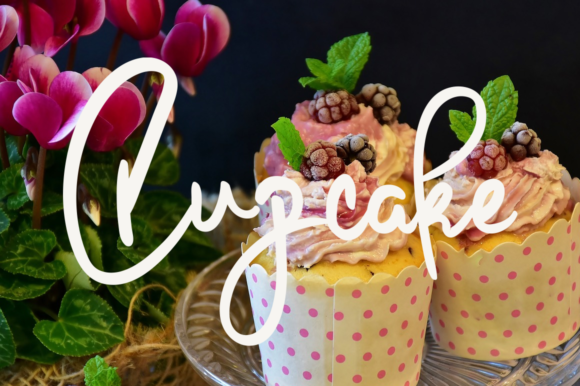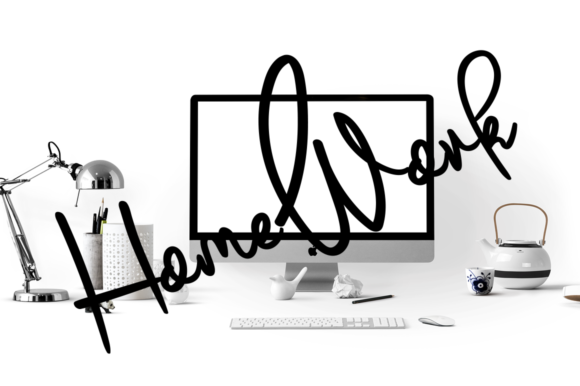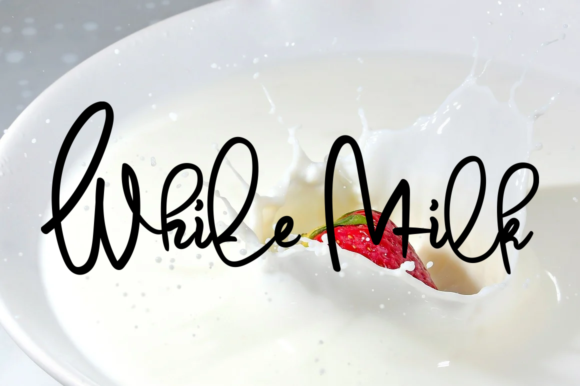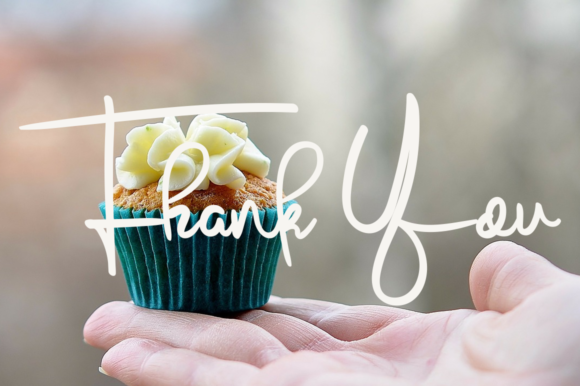
Have you ever stumbled upon a font that instantly makes you want to create something beautiful? For me, it was when I discovered the Butter Sauce Font. As I began to play with its delicate strokes and cursive flourishes, I knew I had to share it with fellow designers. This charming font is the perfect accompaniment to any design project that needs a dash of elegance and romance.
Butter Sauce Font is a dainty, thin, and cursive handwritten font that adds a touch of whimsy to your designs. Its gentle curves and playful feel make it perfect for a variety of design ideas, from wedding invitations to children’s book illustrations. As a designer, you know how valuable it is to have a versatile font that can elevate your work and leave a lasting impression on your audience. The Butter Sauce Font is a valuable addition to any designer’s toolkit, and I’m excited to share its magic with you.
Butter Sauce Font Key Features
- Unique Characteristics: The Butter Sauce Font features a unique, hand-drawn design with subtle texture and imperfections, giving it a warm and inviting feel.
- Language Support: The font supports a wide range of languages, including English, Spanish, French, German, Chinese, and many others, making it a versatile choice for global design projects.
- Kerning and Ligatures: The font includes advanced kerning and ligature pairs, ensuring smooth and seamless text flow, even at small font sizes.
Review of “Butter Sauce Font”
When I first laid eyes on “Butter Sauce Font”, I was immediately drawn in by its playful, whimsical vibe. ✨ The font’s rounded edges and fluid connections give it a smooth, almost hand-drawn feel that’s perfect for adding a touch of personality to a design.
- The font’s flexibility in terms of size and weight is a major strength. It scales well and can easily adapt to a variety of design contexts, from small UI elements to large headlines.
- The inclusion of a bold weight adds a level of sophistication, allowing designers to create contrast and visual interest within a design.
- The font’s unique style is sure to grab attention and add a touch of personality to a design.
However, there are a few areas where “Butter Sauce Font” falls short. ⚠️ While the font is versatile, it may not be the best choice for projects that require a more formal or traditional aesthetic. Additionally, the font’s connections can sometimes appear a bit loose or uneven, particularly at smaller sizes.
Overall, I think “Butter Sauce Font” is a fun and creative option that’s perfect for designers looking to add a touch of whimsy to their work. While it may not be suitable for every project, it’s a great choice for anyone looking to create a unique and engaging design.
Butter Sauce Font is ideal for use in logos, branding materials, and other visual identity elements where a unique and eye-catching font is desired. It’s also suitable for use in packaging design, advertising, and other applications where a bold and playful font is needed.
Tips for Getting the Most Out of Butter Sauce Font
To get the most out of Butter Sauce Font, use it in combination with bold and bright colors to create a striking visual effect. Experiment with different font sizes and styles to add emphasis and create visual interest.
Compared to Butter Sauce Font, Playfair Display has a more formal and refined look, making it suitable for high-end designs. While Butter Sauce Font has a more playful and casual feel, Playfair Display exudes sophistication and elegance.
What is the recommended line height for using Butter Sauce Font?
The recommended line height for using Butter Sauce Font is 1.2-1.5 times the font size. This ensures sufficient spacing between lines of text and improves readability, especially for longer blocks of text.